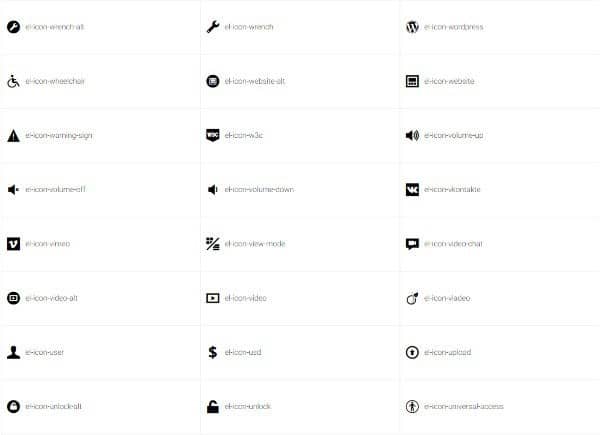
Elusive: free icons web-font
Elusive - free icons webfont
Elusive Icons is a free webfont that contains 299 sleek icons. Pack also contains icons in SVG vector format. Elusive webfont was created for using in Bootstrap but it can be used in any projects – Bootstrap-based, Foundation-based or your custom projects!